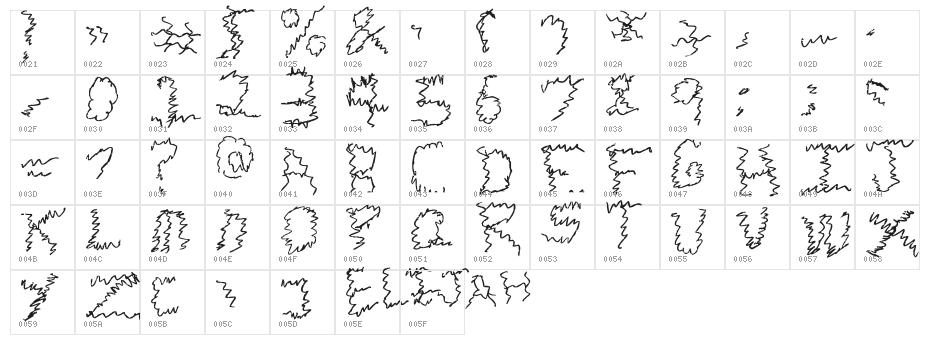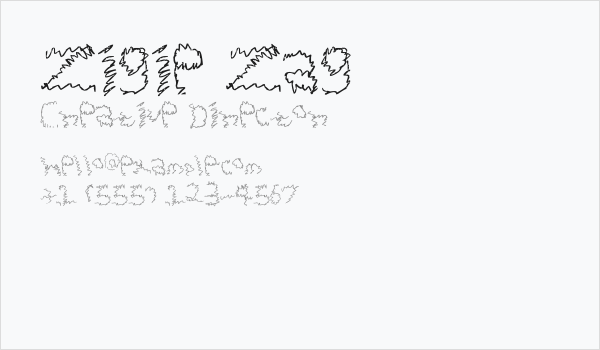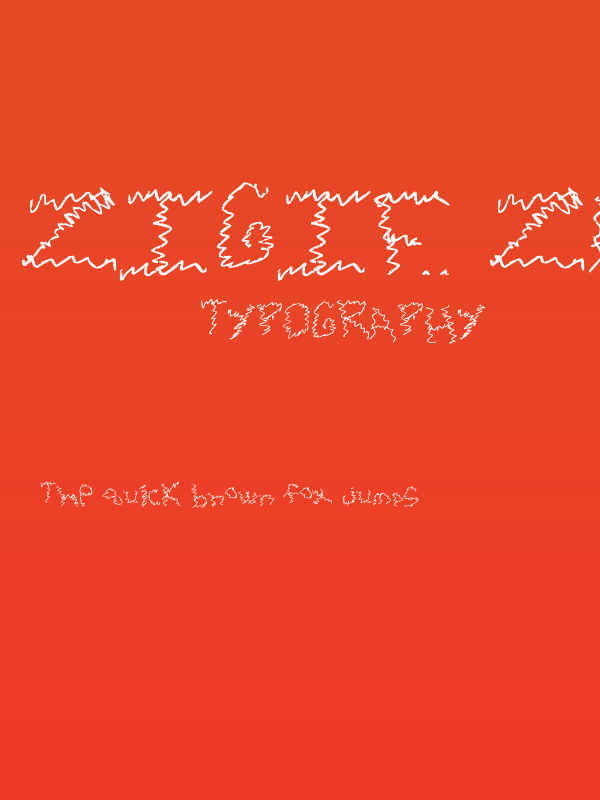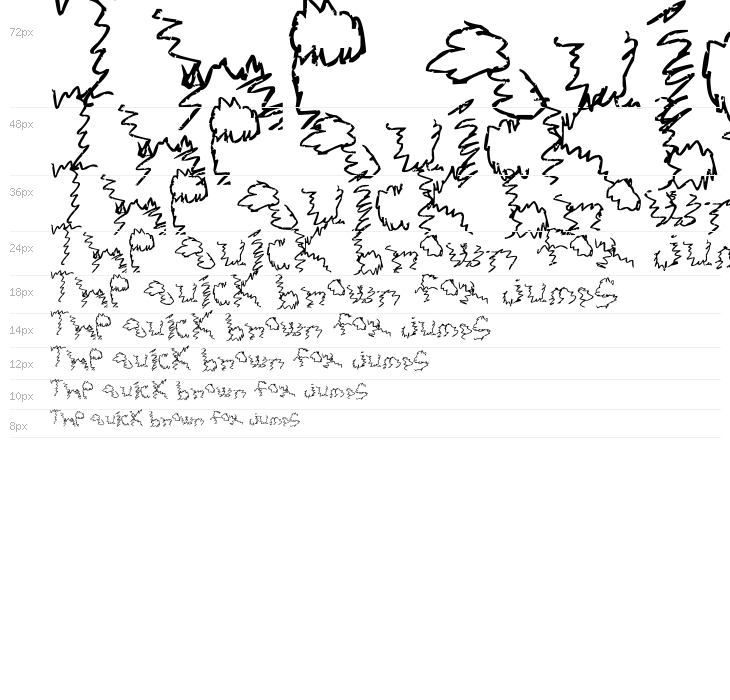
Zigie Zag Font
Zigie Zag Description
This font features a highly distinctive and chaotic design, with each character appearing as if it is composed of zigzag lines or jagged edges. The letters have an erratic and energetic feel, making them stand out with a unique, hand-drawn aesthetic. The irregularity in the strokes gives it a dynamic and lively appearance, which can be both eye-catching and playful. The font's unconventional style makes it suitable for creative and artistic projects where a sense of movement and spontaneity is desired. Despite its chaotic nature, each character is still recognizable, maintaining legibility while offering a bold statement.
| Use Case | Logos, Posters, Artistic projects |
| Proposed Projects | Ideal for artistic projects, edgy branding, album covers, posters, or any design requiring a bold, unconventional look. |